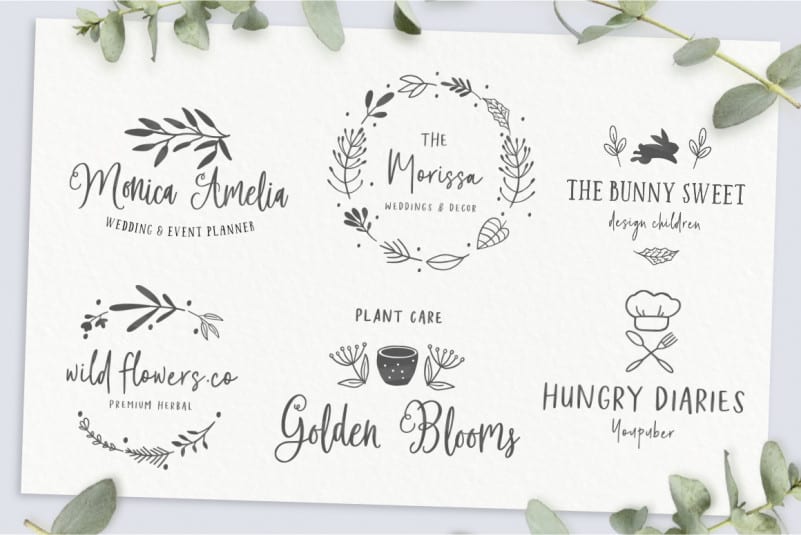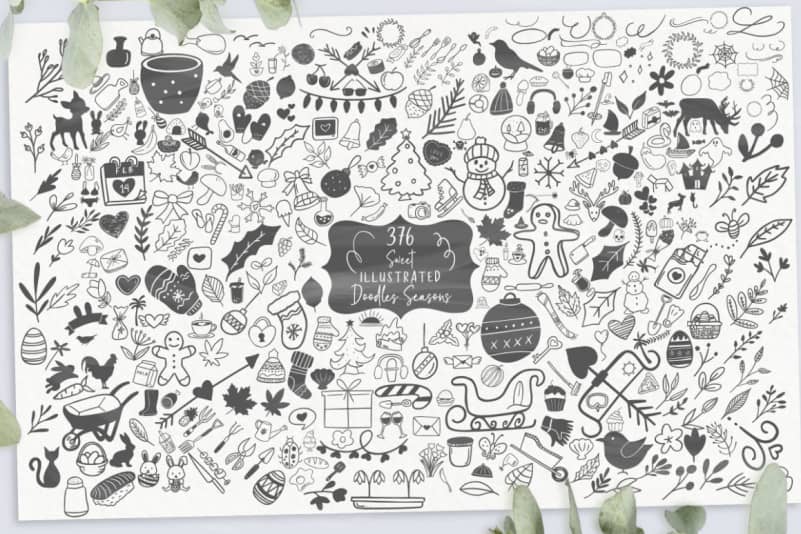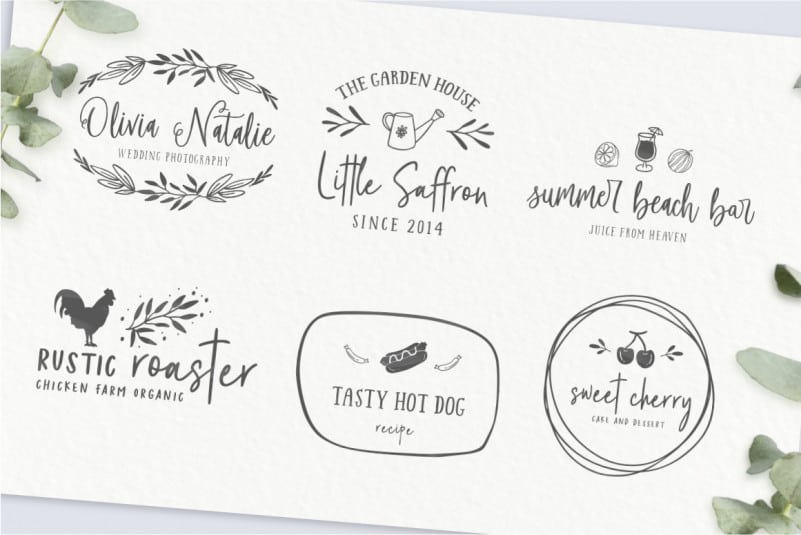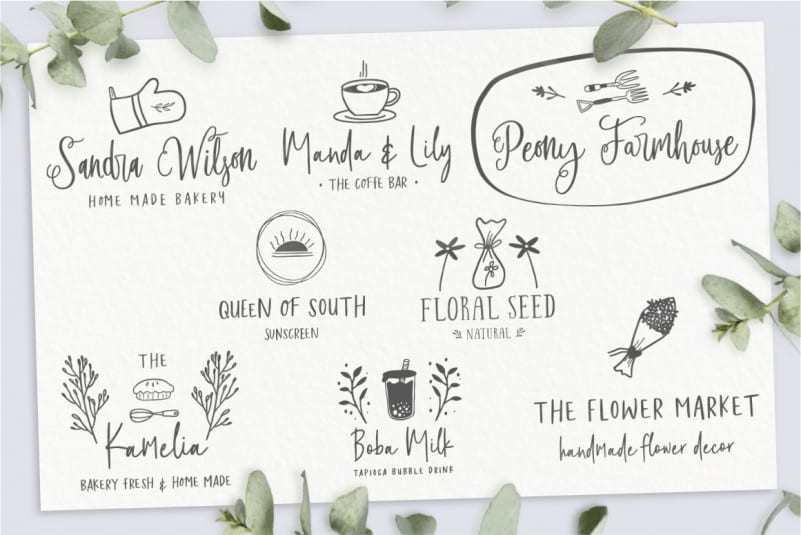
Felichiya Collection Script Font
Felichiya Collection Script Font is beautiful font four with doodles which can be mixed like milk and cereal. We also make 376 vectors and 35 pre-designed logo templates, very easy to use.